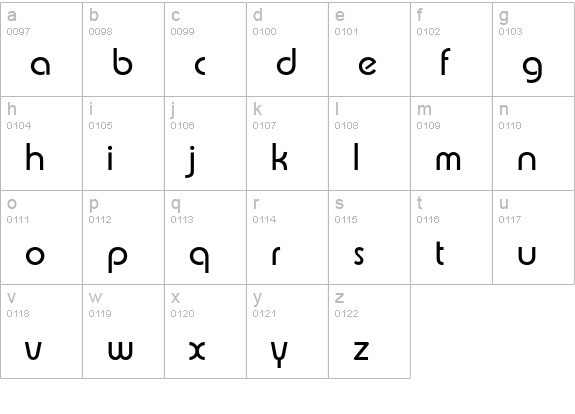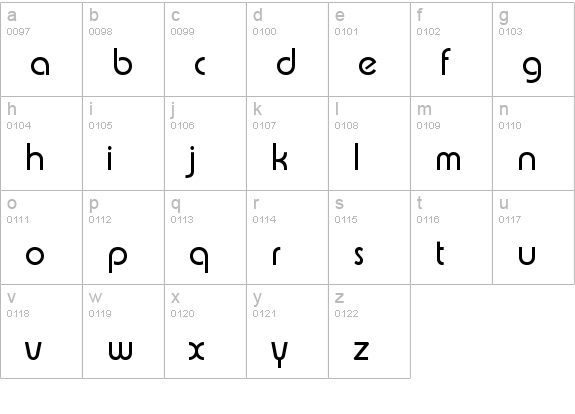
ExpressaEF-Regular Font Details
ExpressaEF-Regular is the standard, neutral variant in the ExpressaEF typeface family \xE2\x80\x94 well suited to general body text, paragraphs, and standard typographic work.
ExpressaEF-Regular is a modern and versatile font that combines the elegance of classic typefaces with a contemporary twist. Its clean lines and balanced proportions make it suitable for a wide range of design projects, from branding to editorial design. The font's readability and versatility make it a great choice for both display and body text. ExpressaEF-Regular is a free font that is available for download at FontsMarket.com. This means that you can use it in your personal and commercial projects without any restrictions. Whether you're designing a website, creating a logo, or working on a print publication, ExpressaEF-Regular is a reliable choice that will help you achieve a polished and professional look. Download it today and add a touch of sophistication to your designs.